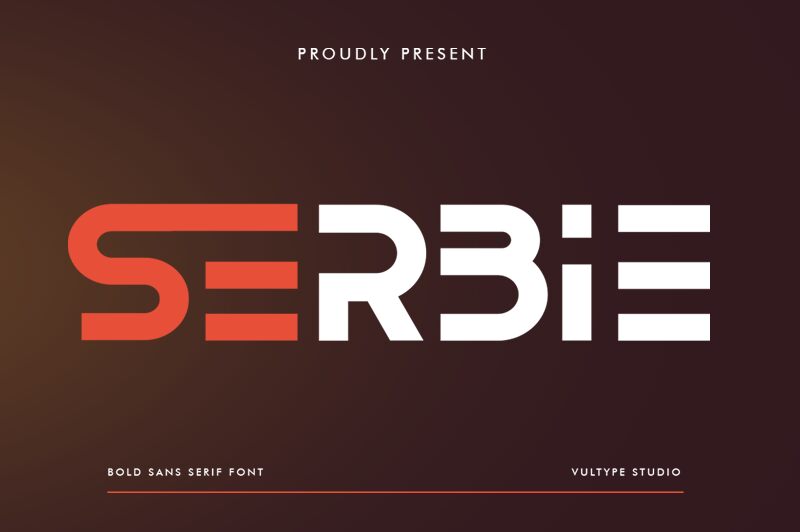
Serbie Regular
Serbie, a striking display font crafted by Vultype, exudes a bold, technological allure. Its sharp, geometric letterforms and sleek appearance evoke a sense of modernity and digital sophistication. The font's strong, angular design elements create a commanding presence, making it an impactful choice for headings, logos, and attention-grabbing visuals.
Serbie's versatility allows it to shine in a variety of design contexts, from cutting-edge branding and packaging to dynamic digital interfaces and event materials. Its distinctive style lends itself well to projects seeking to convey a futuristic, high-tech aesthetic, making it a compelling option for tech companies, digital agencies, and creative industries seeking to capture a visually striking, forward-thinking impression.